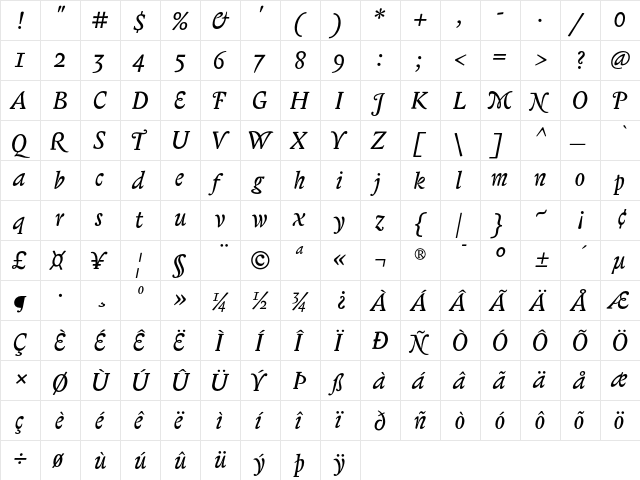
Biblon OT Italic
Design Context for Biblon OT Typeface
Biblon OT is a composed and adaptable typeface that performs quietly and consistently across a wide range of design contexts. Its italic angle brings a sense of urgency and motion to the letterforms.
Pro Tip: Use Biblon OT for emphasis, pull quotes, and subheadings where its slanted energy can add rhythm to the layout.